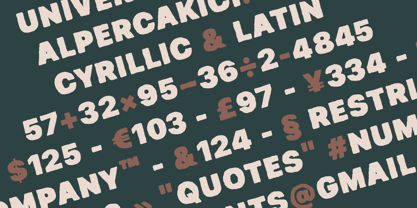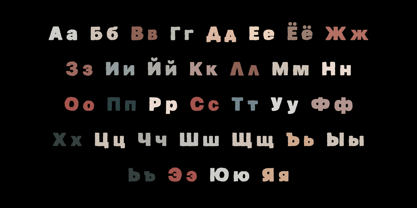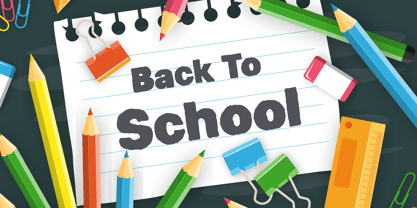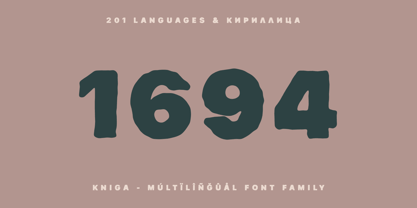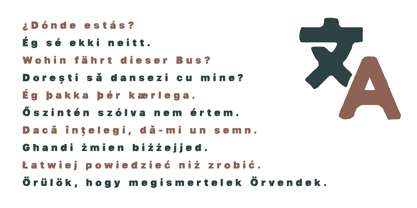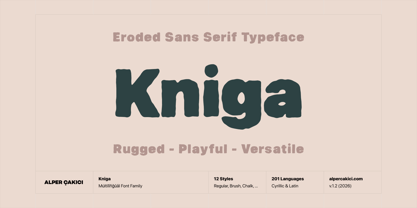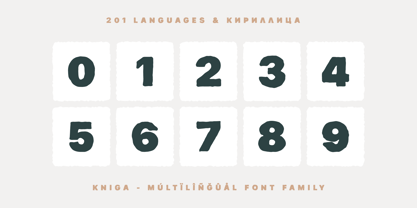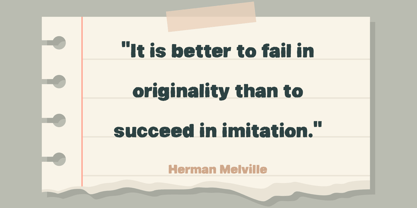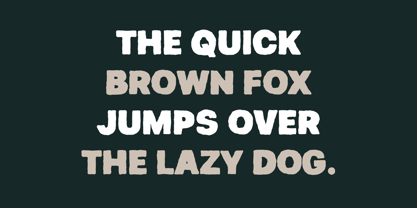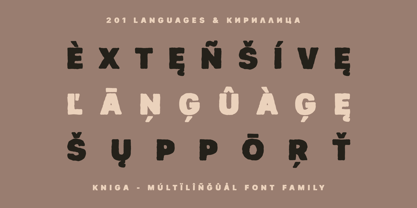
Kniga
La familia tipográfica Kniga fue diseñada por Alper Çakıcı y publicada por AlperCakici. Kniga contiene 12 estilos y opciones de paquete familiar. Más información sobre esta familia
Kniga is an eroded sans serif typeface that masterfully balances industrial structure with organic texture. Drawing inspiration from weathered print, worn signage, and aged paper surfaces, it transforms clean geometric forms into expressive letterforms that are rich in character and atmosphere. Designed for creatives seeking authenticity without compromising readability, Kniga merges strong sans serif foundations with meticulously crafted distressed details. The outcome is a versatile display and branding family that embodies a unique blend of vintage, rugged, and contemporary styles. Its textured appearance adds depth and personality while ensuring a clear visual rhythm across various applications, including headlines, logos, packaging, editorial layouts, posters, album artwork, and digital graphics. The family features twelve distinct styles, ranging from clean and legible designs to heavily distressed variations. Regular and Italic styles provide a solid foundation for everyday use, while Rough, Aged, and Hazy styles introduce progressively stronger weathered effects. Additionally, Outline and Shadow variants expand creative possibilities, enabling layered compositions, dimensional typography, and eye-catching display treatments. Kniga supports 201 languages across Latin and Cyrillic writing systems, making it an excellent choice for international branding and multilingual design projects. With 489 glyphs and extensive language coverage, it offers the flexibility needed for professional publishing, advertising, packaging, and creative production. Whether utilized for rustic branding, vintage-inspired packaging, outdoor adventure graphics, music artwork, editorial headlines, gaming visuals, or contemporary posters, Kniga delivers a distinctive worn aesthetic that feels handcrafted, expressive, and memorable. Features: • 12 styles • Eroded sans serif design • Regular, Italic, Rough, Aged, Hazy, Outline, and Shadow variants • 489 glyphs • Latin and Cyrillic support • 201 language support • Multilingual character set • Ideal for branding, posters, packaging, editorial, logos, apparel, gaming, and display typography.